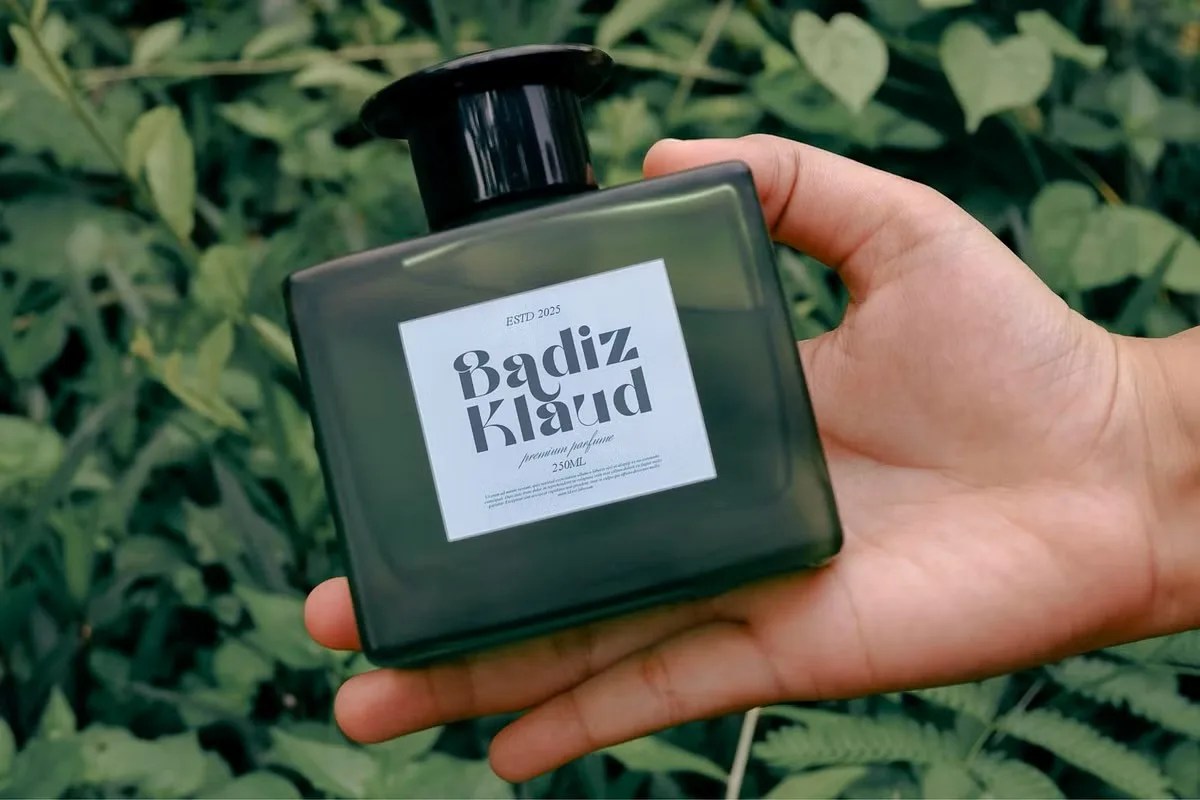
Bozzava by Ermedia Studio. This is a distinctive and modern serif font that projects a powerful personality. It expertly combines timeless serif traditions with a fresh, contemporary energy. The font has a confident and assertive character from the moment you type with it. This makes it an excellent choice for projects that need to stand out with a blend of sophistication and undeniable strength.
This font is a fantastic tool for creating memorable brand identities. Specifically, its assertive style is perfect for logos and headlines that need to command attention. It works especially well for businesses that want to project both tradition and forward-thinking innovation. Furthermore, this modern serif font is excellent for editorial layouts. It can serve as a powerful headline or an elegant subheading in a magazine or on a website. Its underlying clarity ensures readability, while its unique style provides compelling visual interest.
• Distinctive modern serif style
• Features sharp serifs with stylish proportions
• Ideal for branding, logos, and headlines
• Adds a confident and sophisticated touch
Bozzava